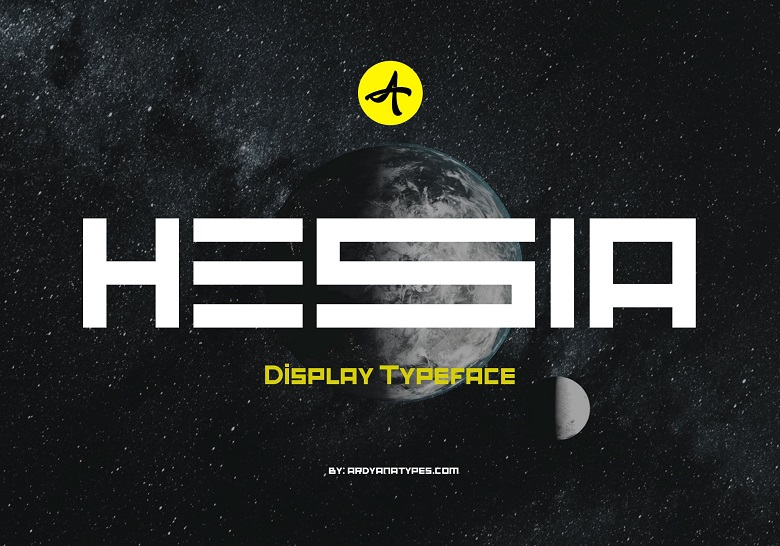
Hesia Font
Hesia Display Font is an avant-grade font fresher, a font idea that is inclined toward the visualization of technology, suitable for logo, futuristic movies, and current gadgets. You know that hesia has a peculiar kind of beauty, so it will be very appropriate to be used in combination with any type. Site has many options and ligatures that bring an enriched interactivity to each design.
Hesia also has the support for more than one language and is rather easy to use. Hesia is interesting to use in the creation of books, posters for movies, logos, branding, business cards and other. Objects that can be combined with Hesia Typeface.
Hesia Display Font